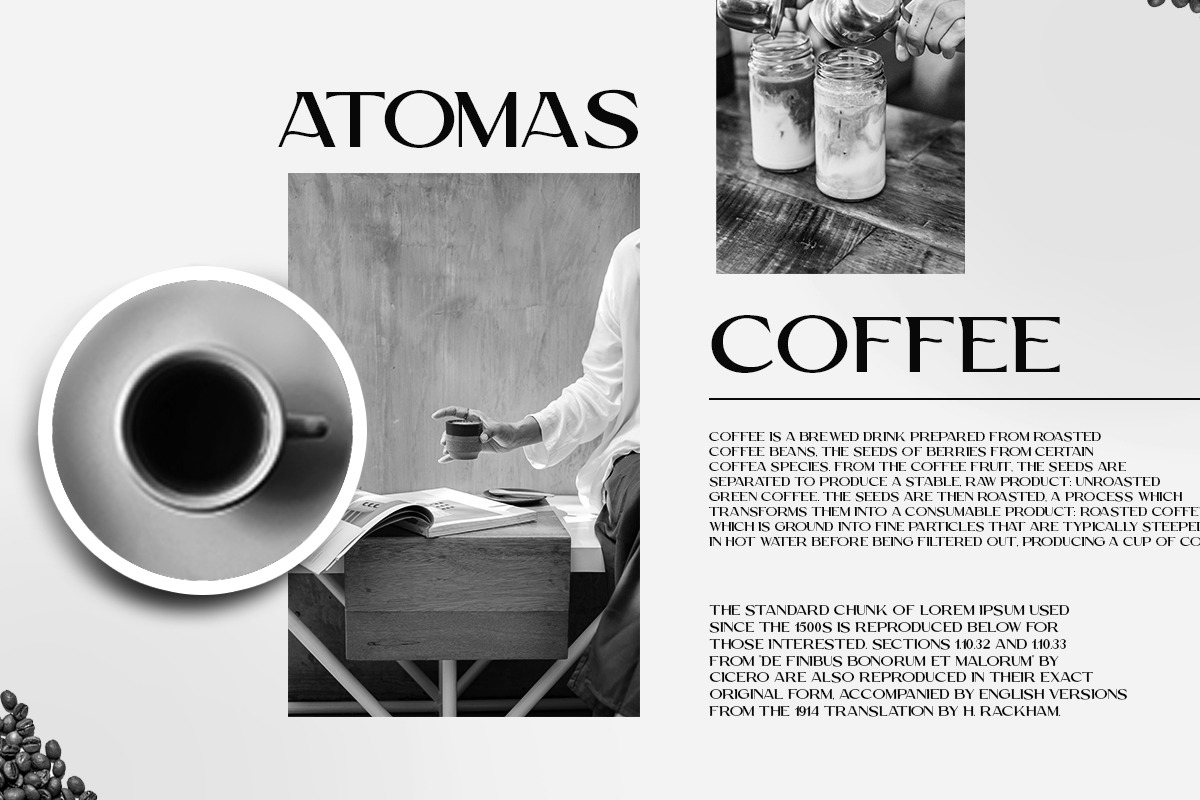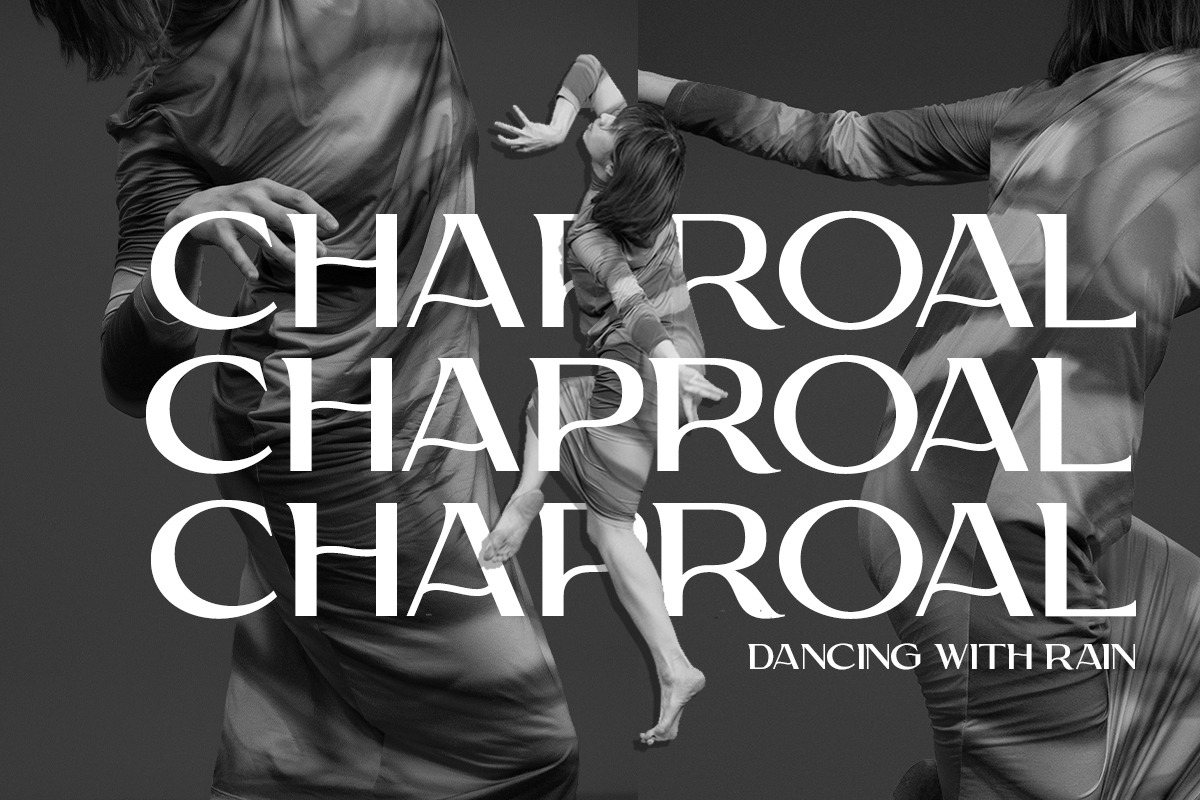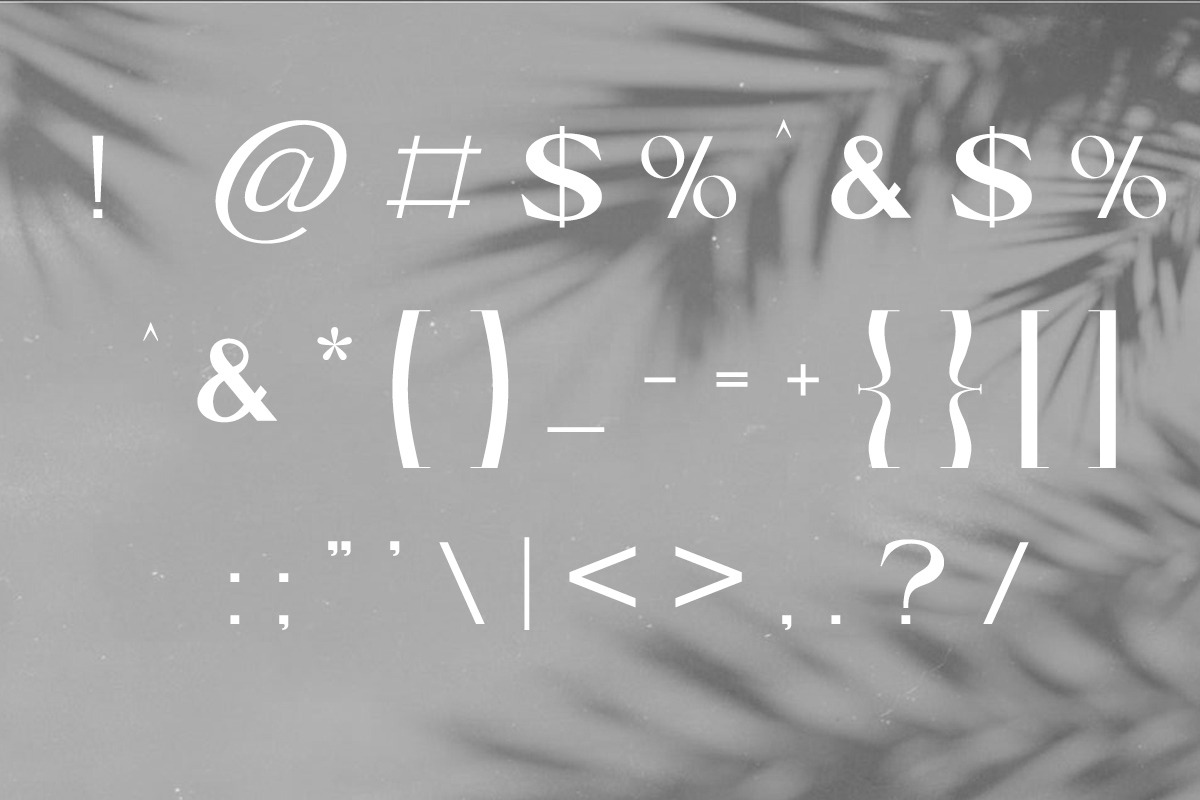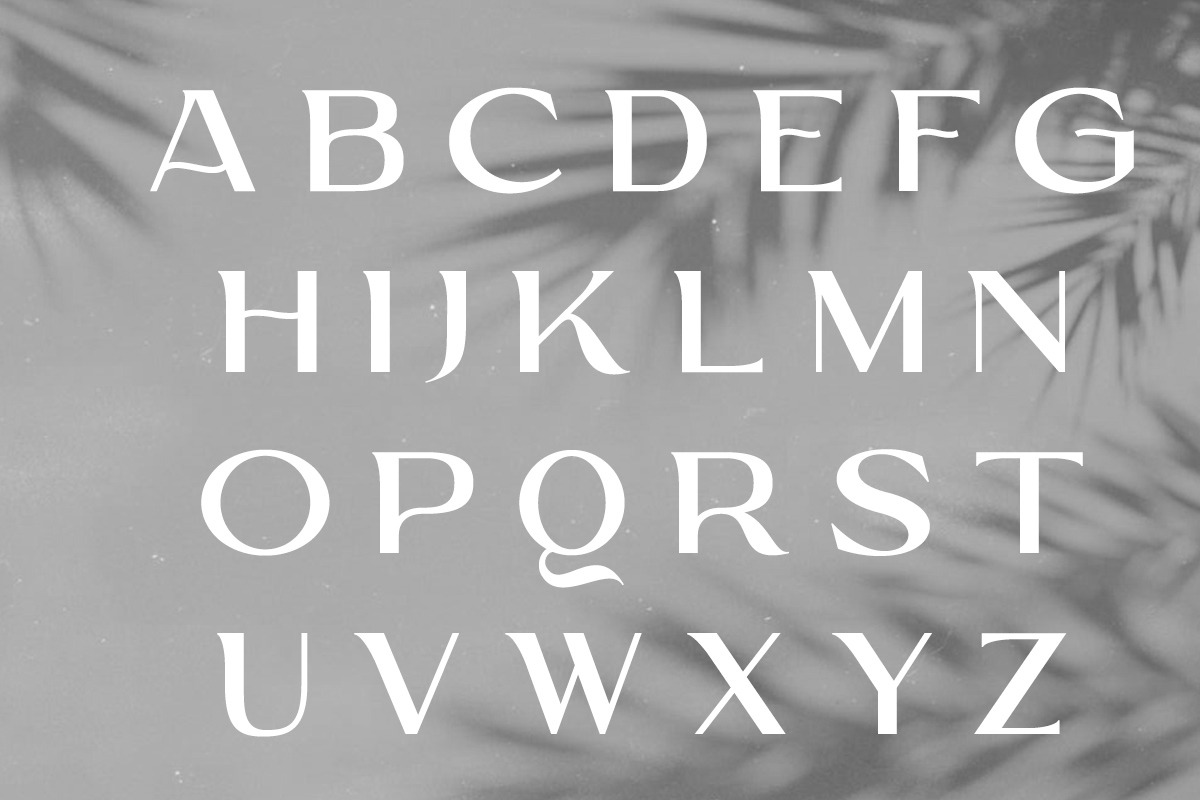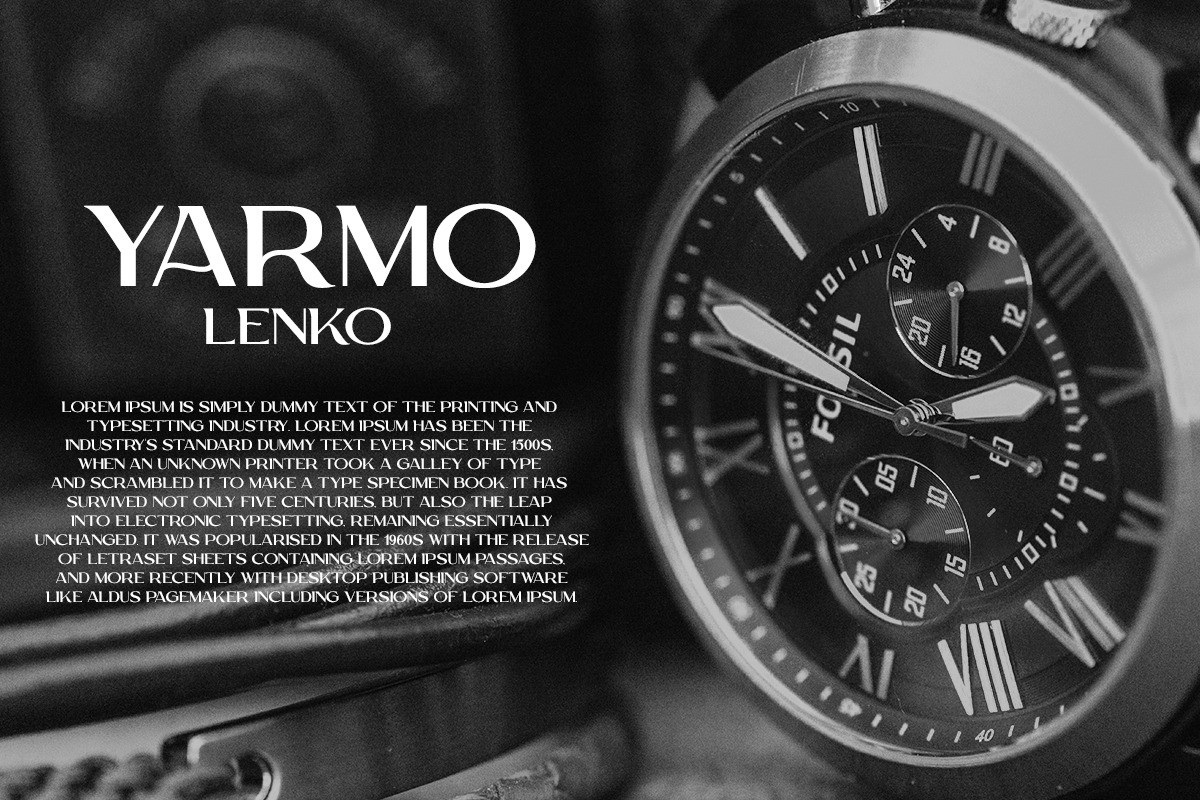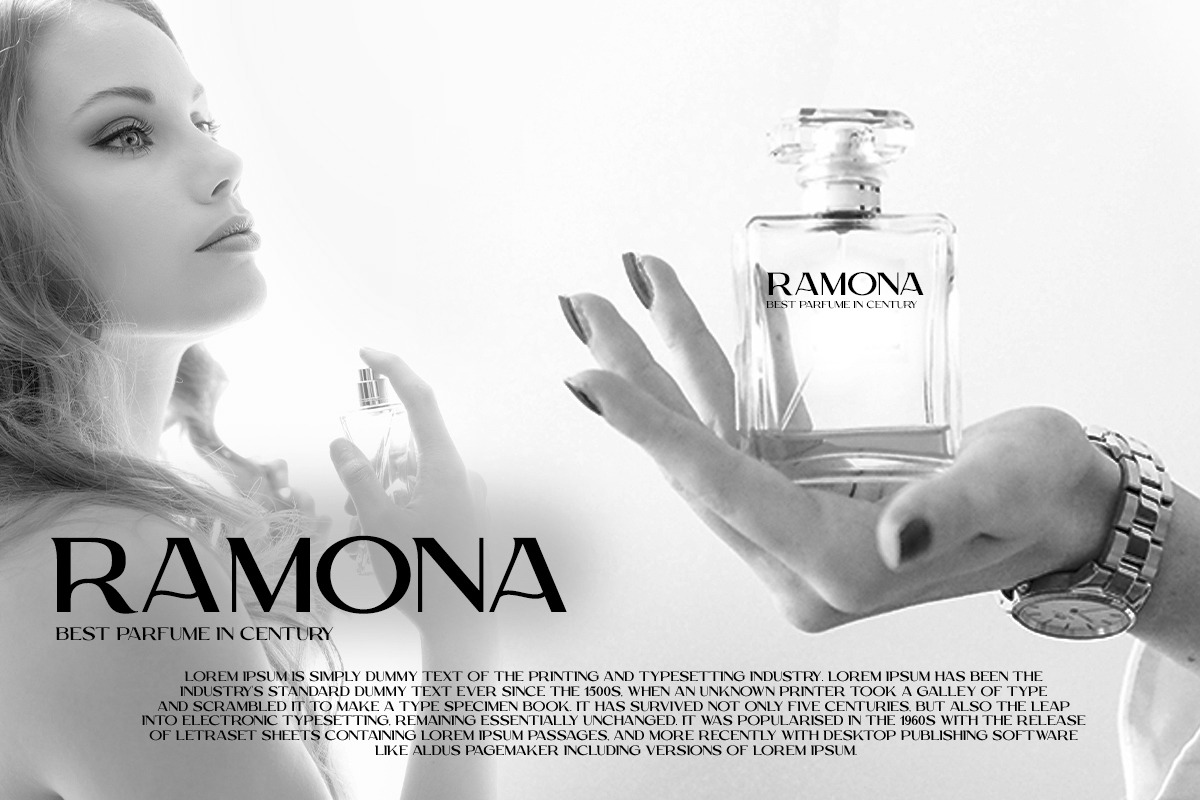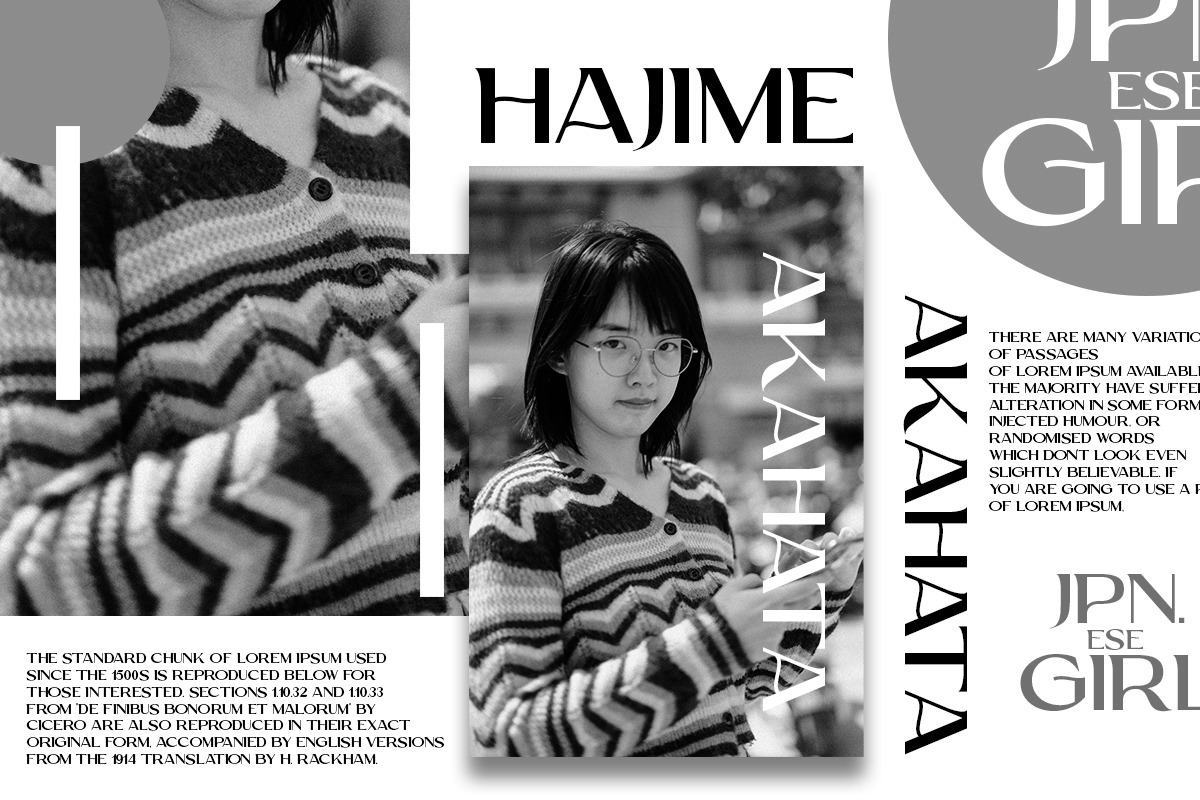
Serena | Modern Sans Serif
Serena fonts includes uppercase letters, numerals, a large range of punctuation. Modern Sans Serif font with Elegant style. Created for poster, web design, branding, illustrations, badges and some other works.